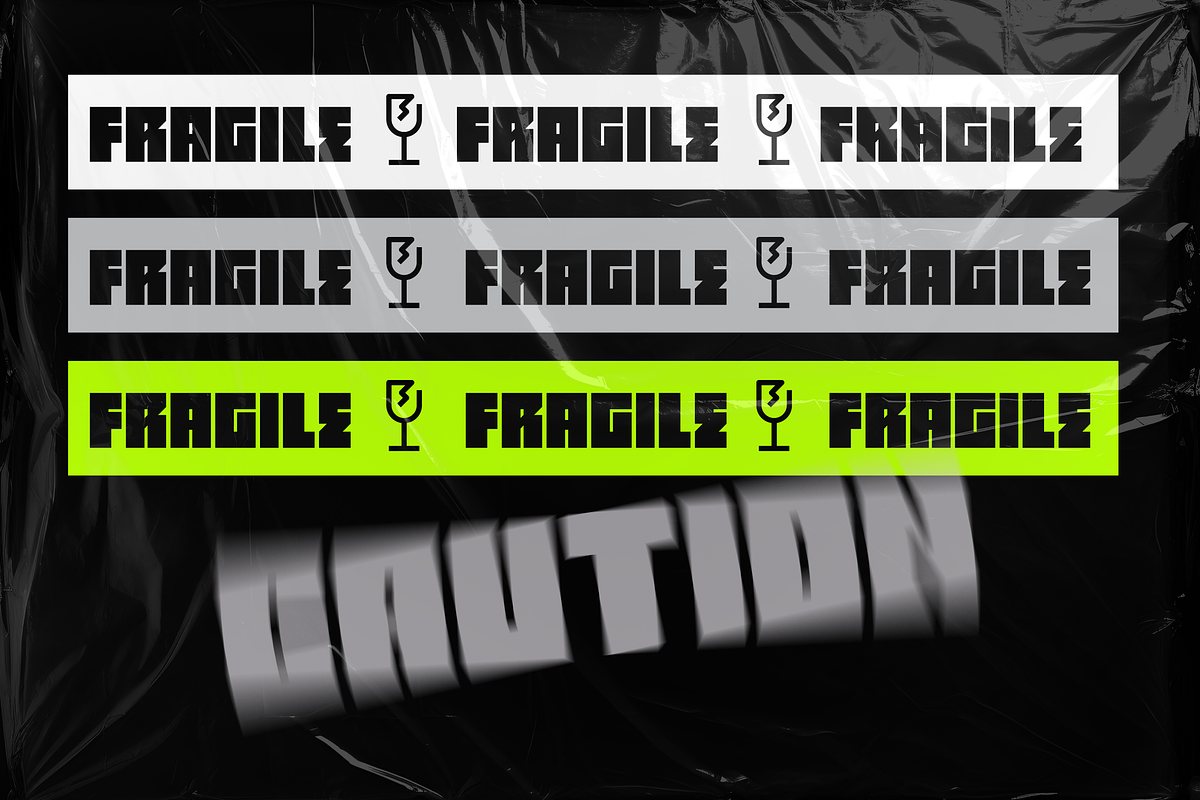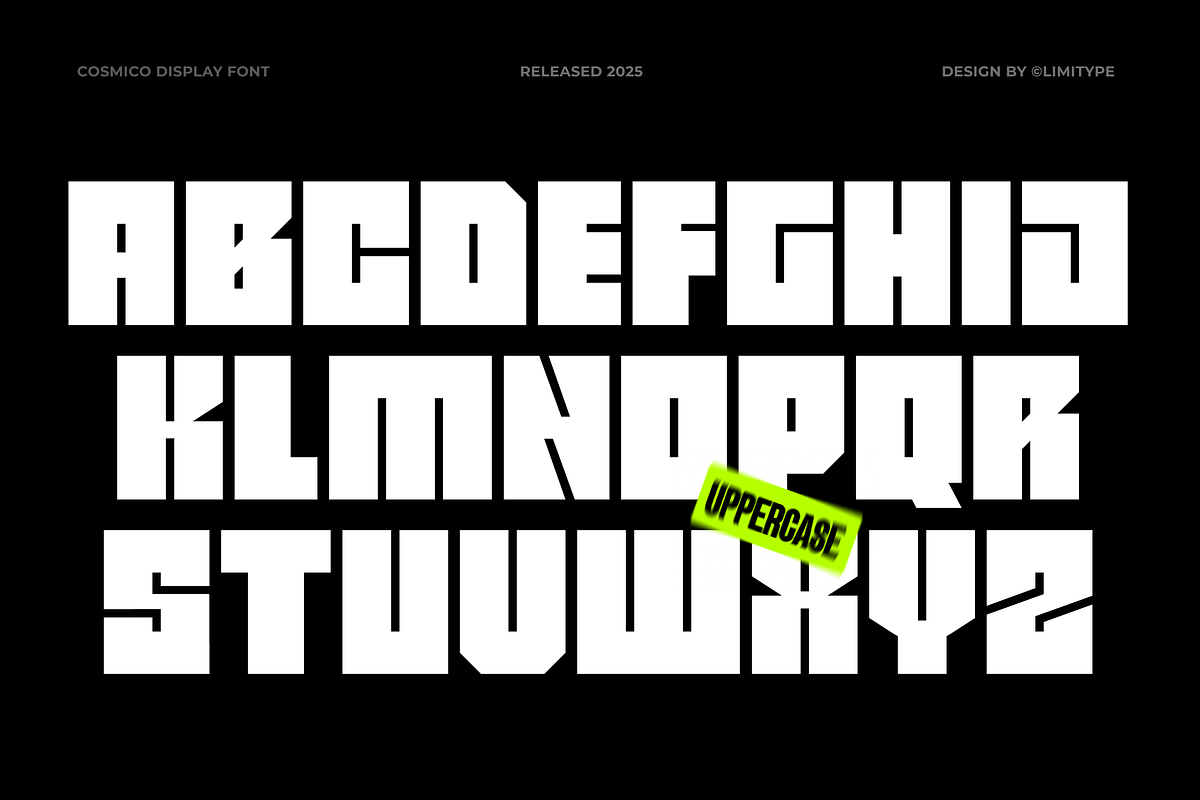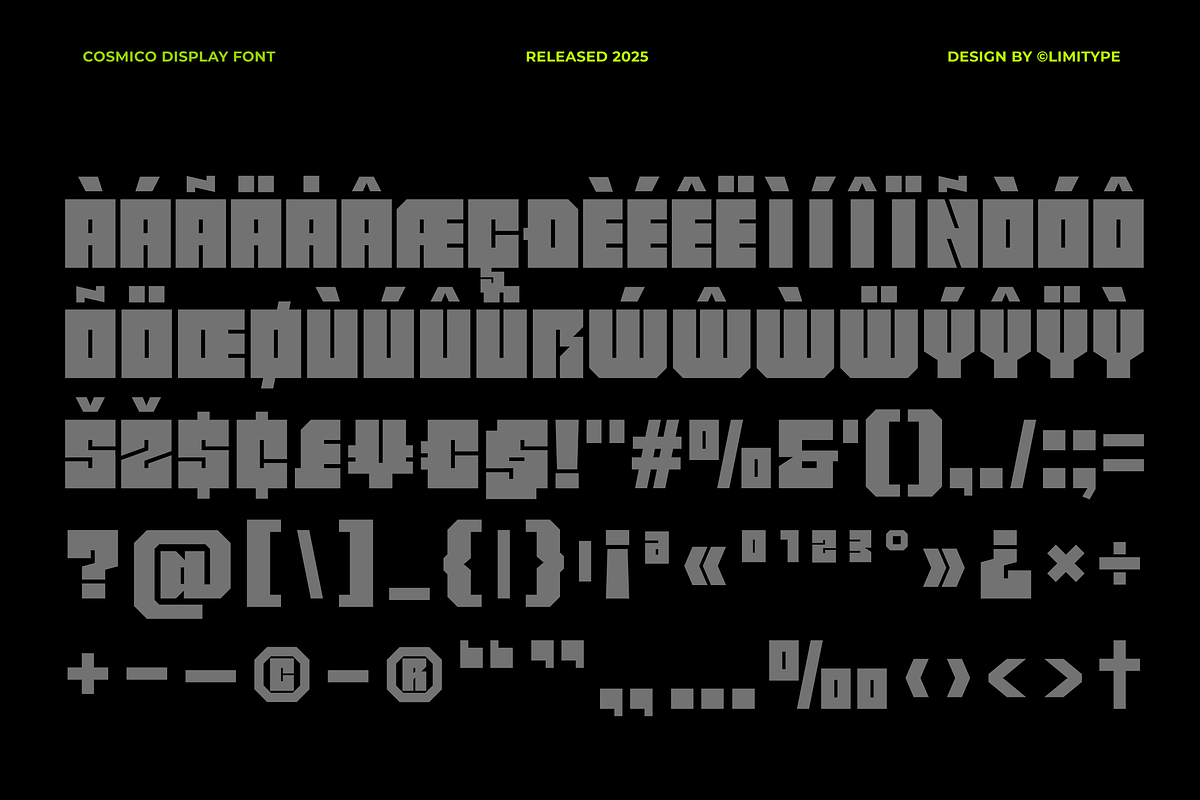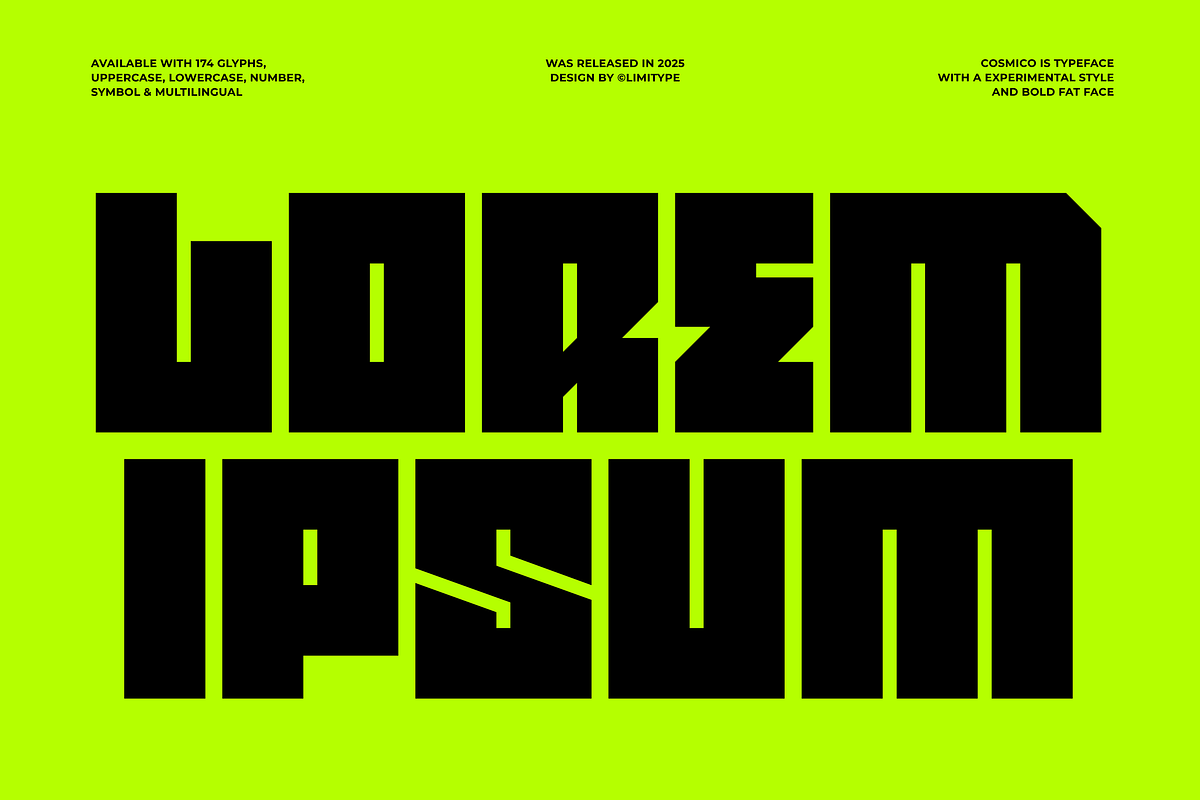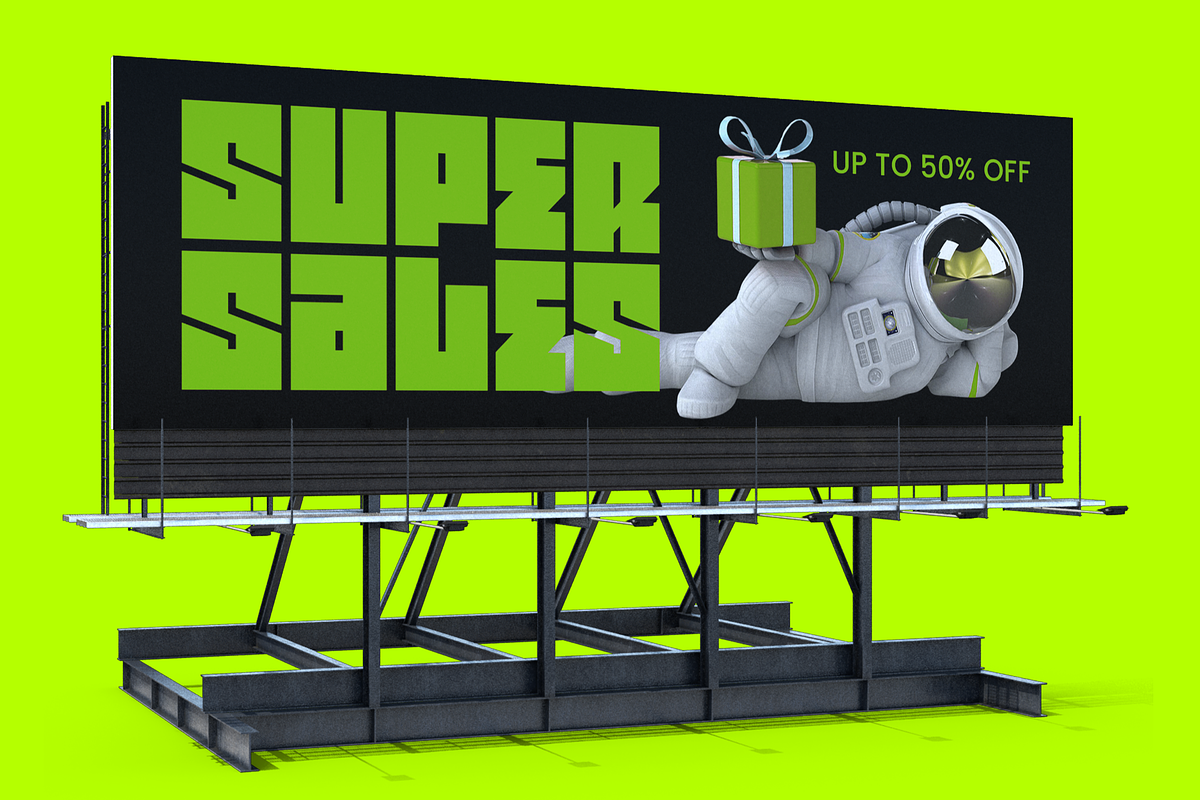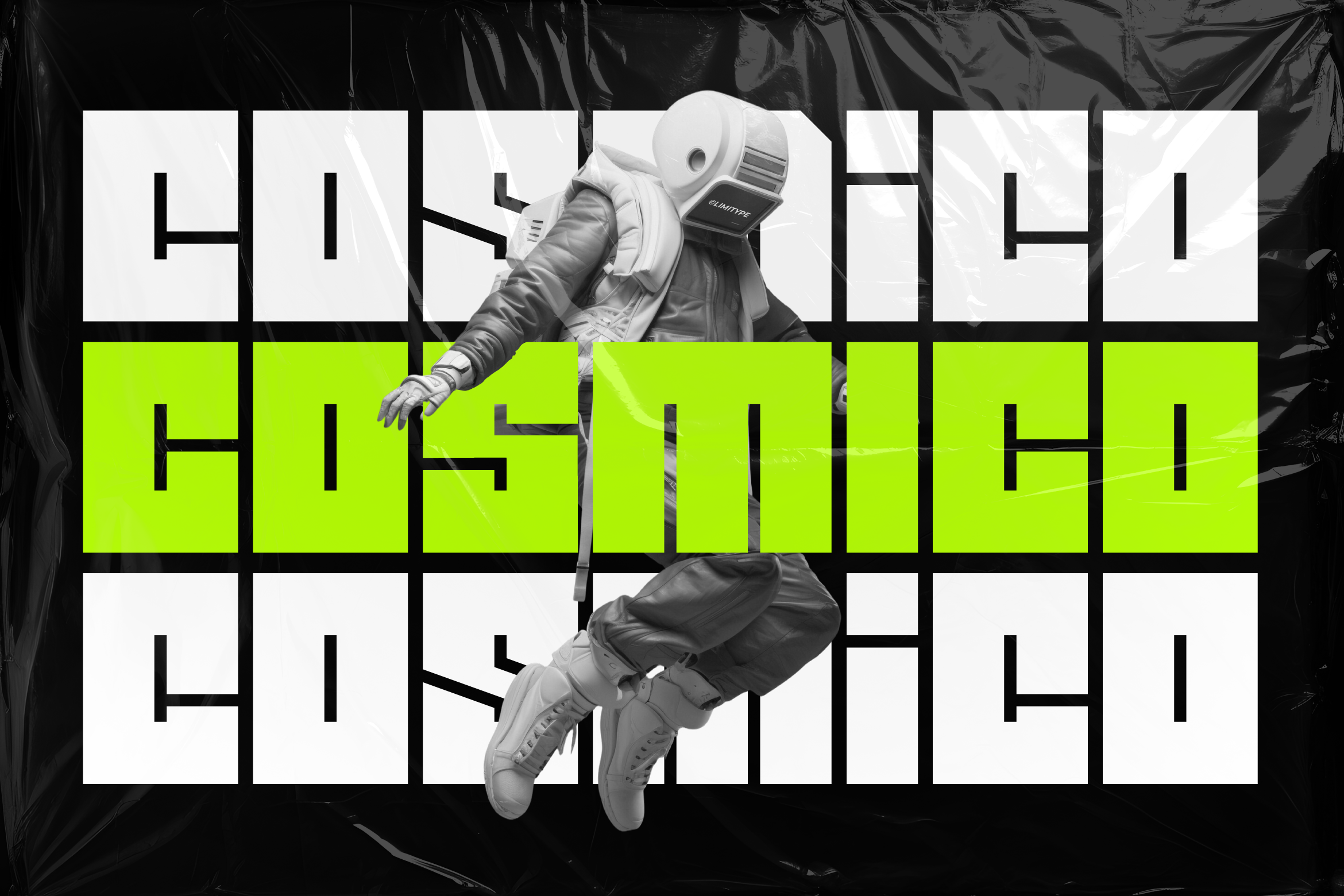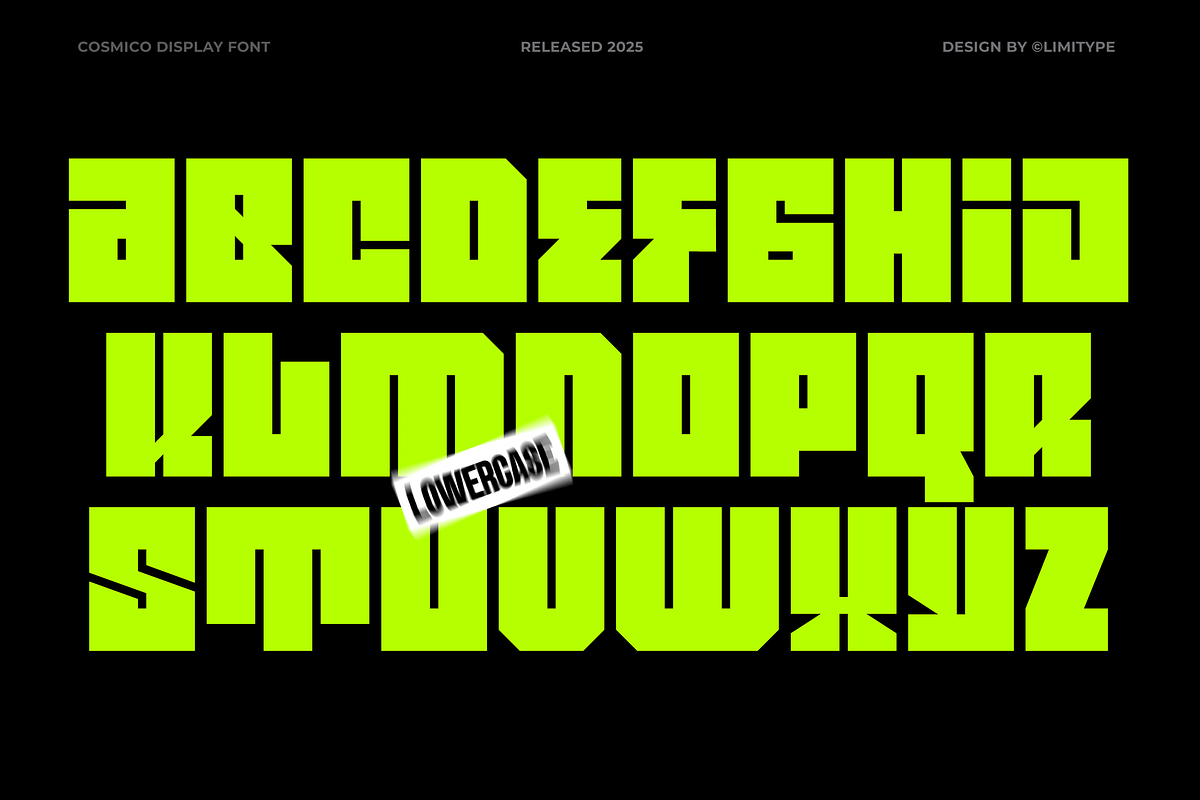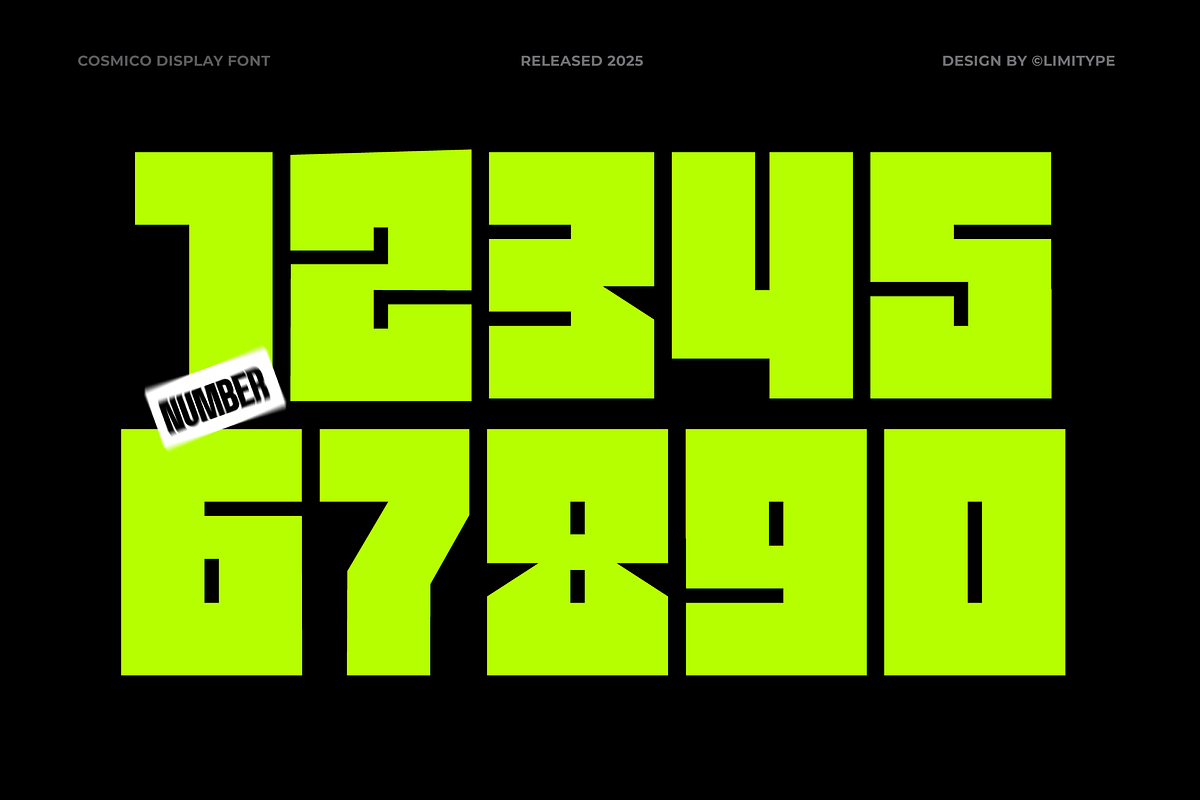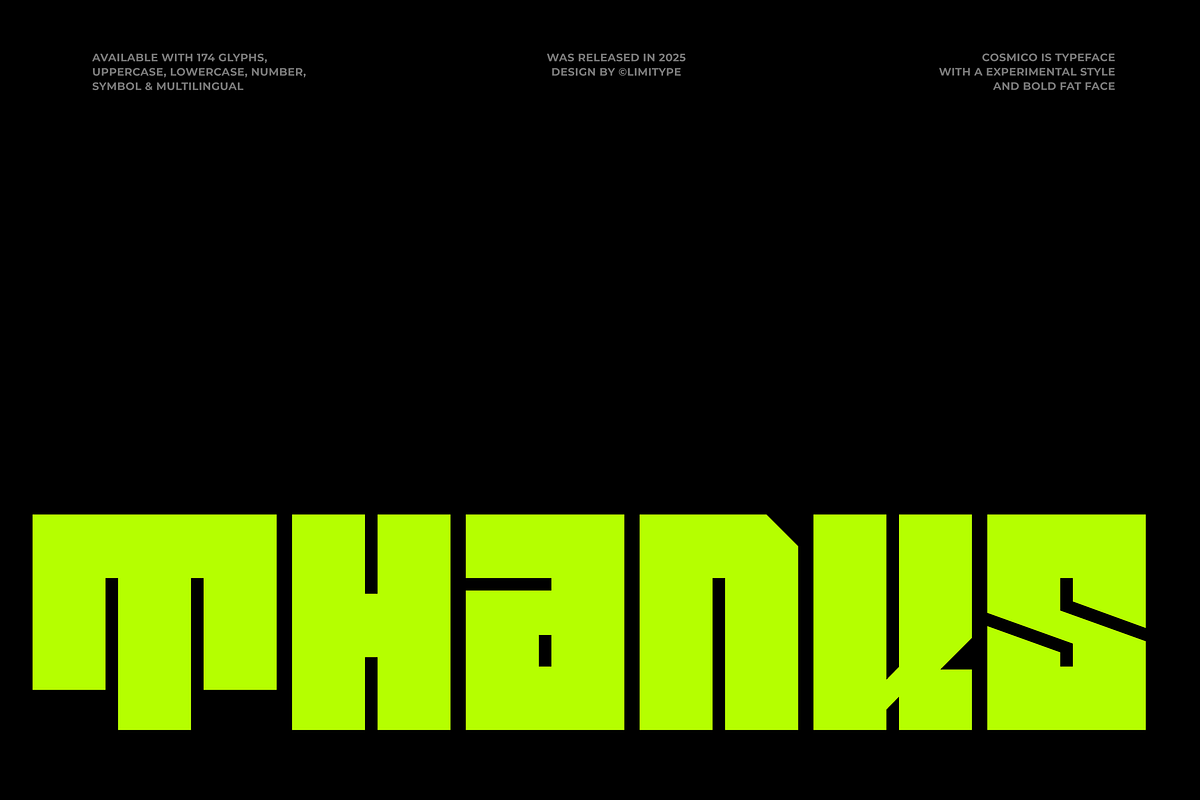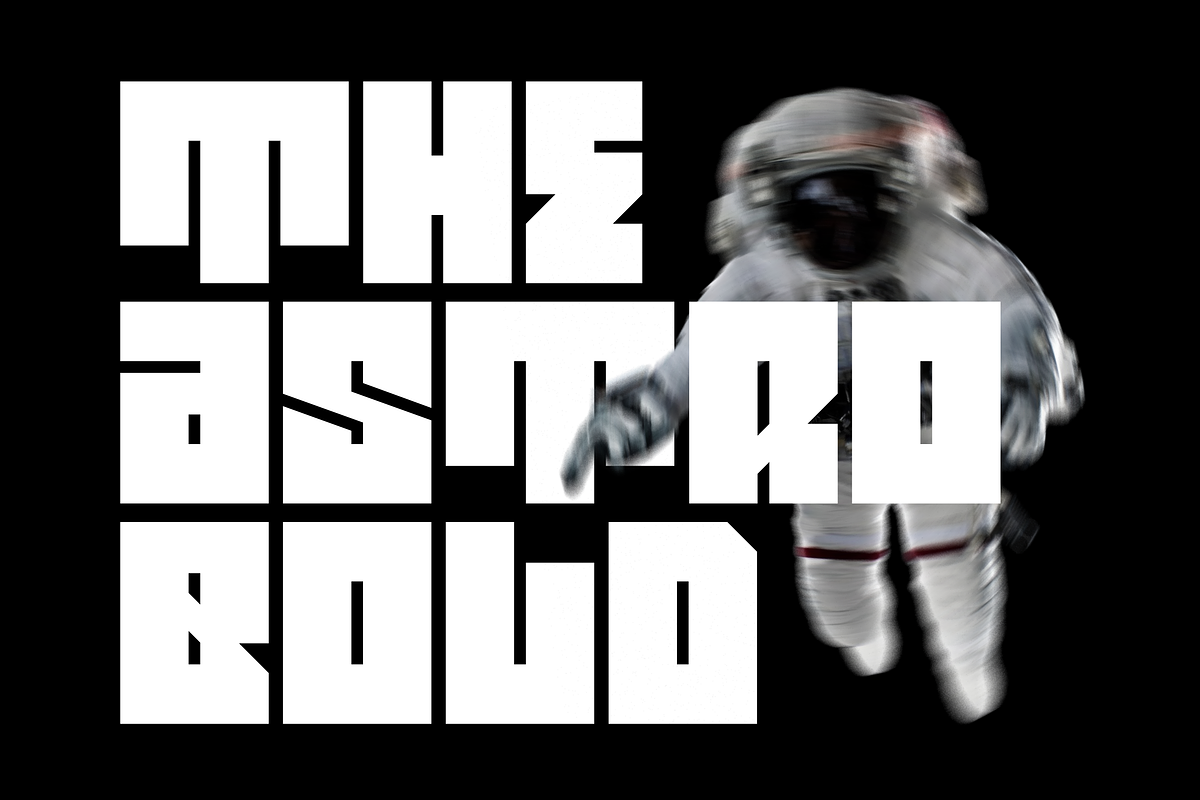
Cosmico - Bold Font
Cosmico is a bold modern font with a sharp and strong character. Designed to stand out and look professional, it’s suitable for branding, headlines, posters, and digital designs that need a strong, modern, and futuristic feel.